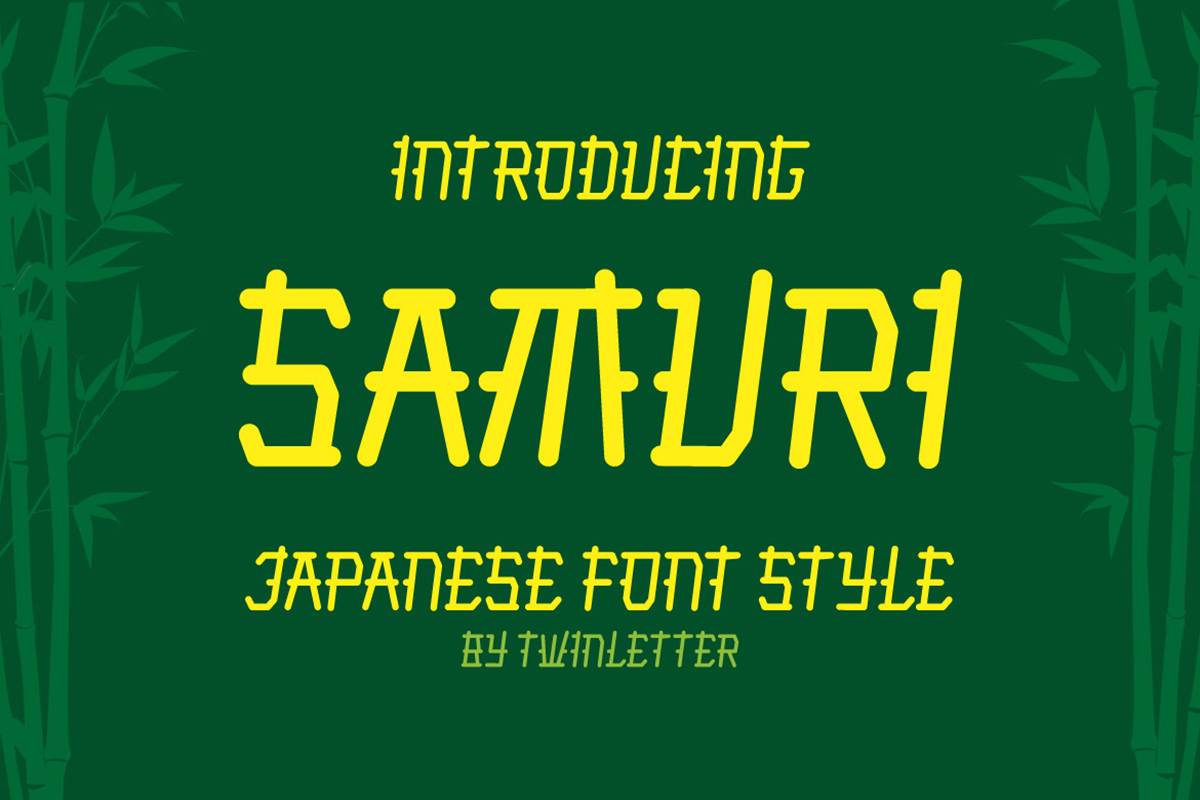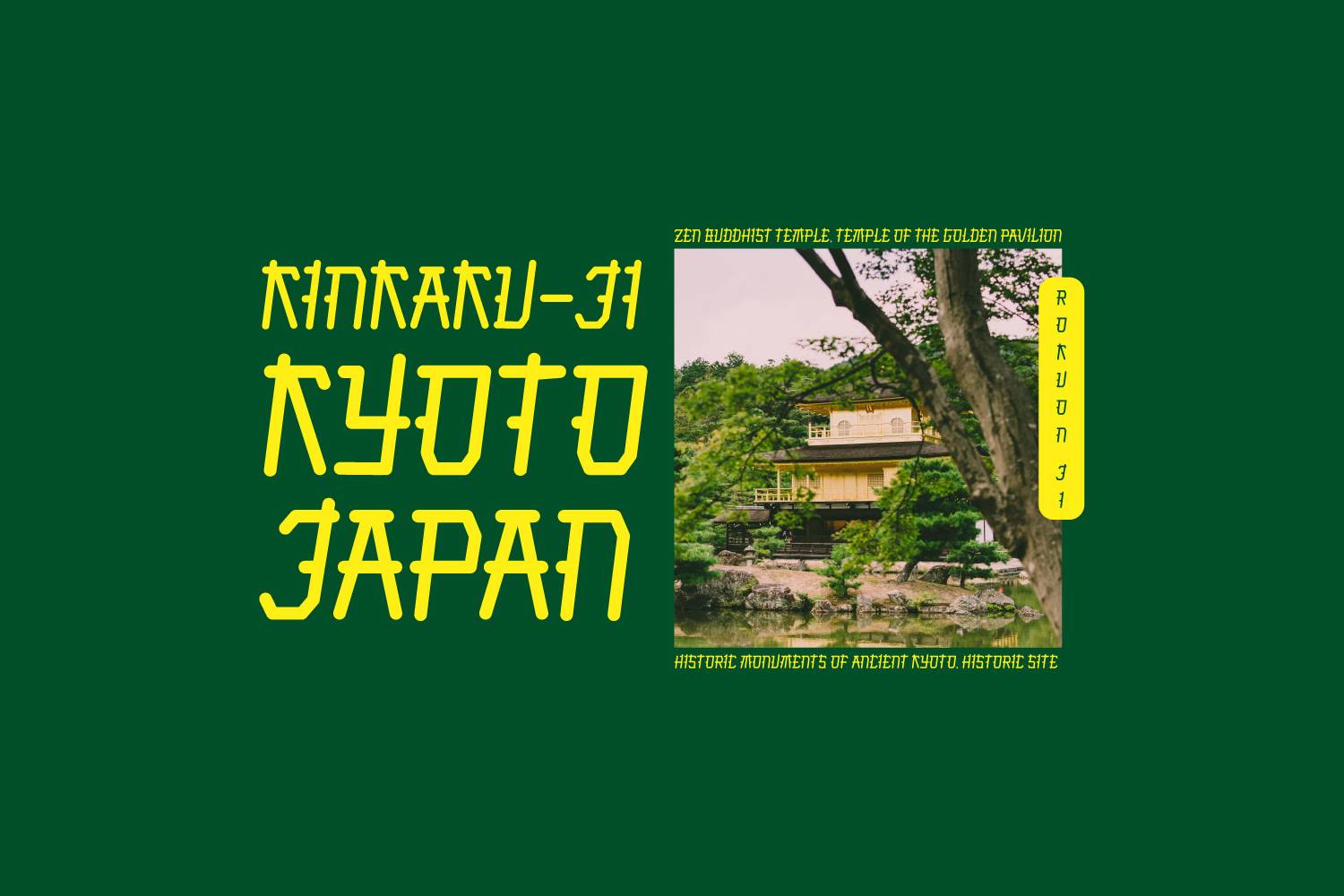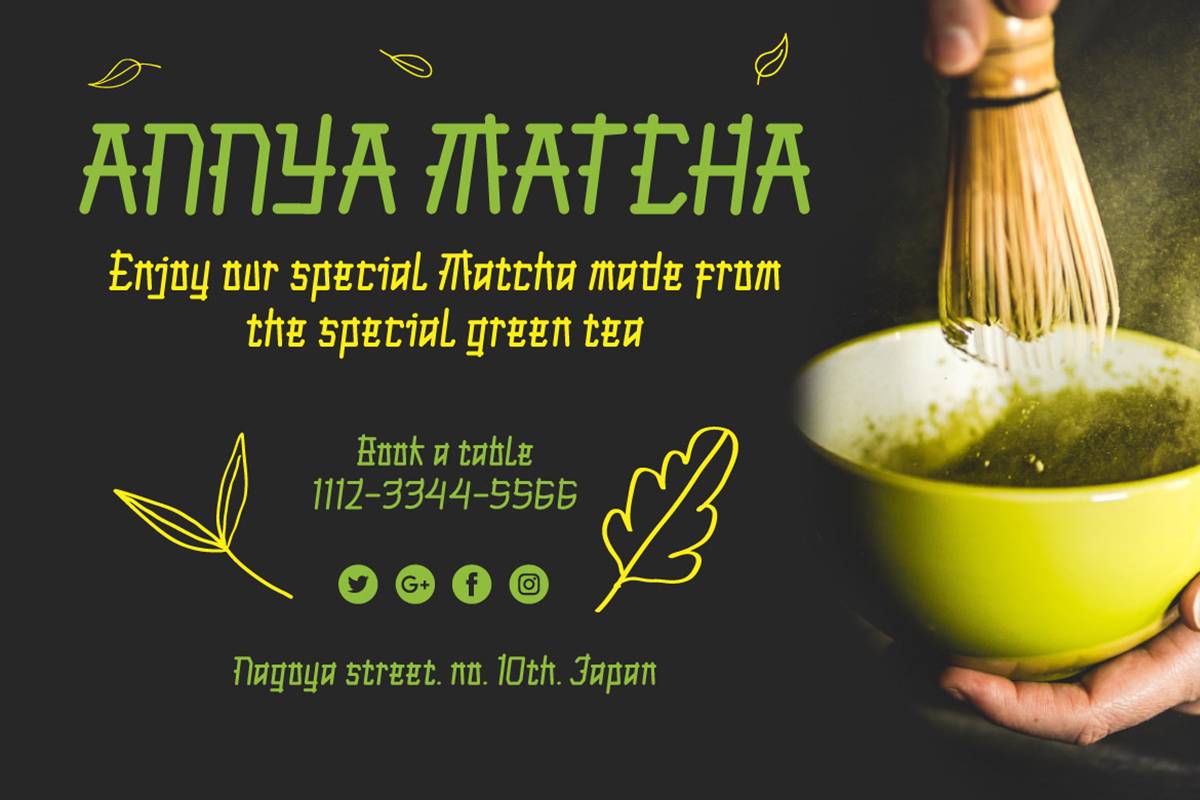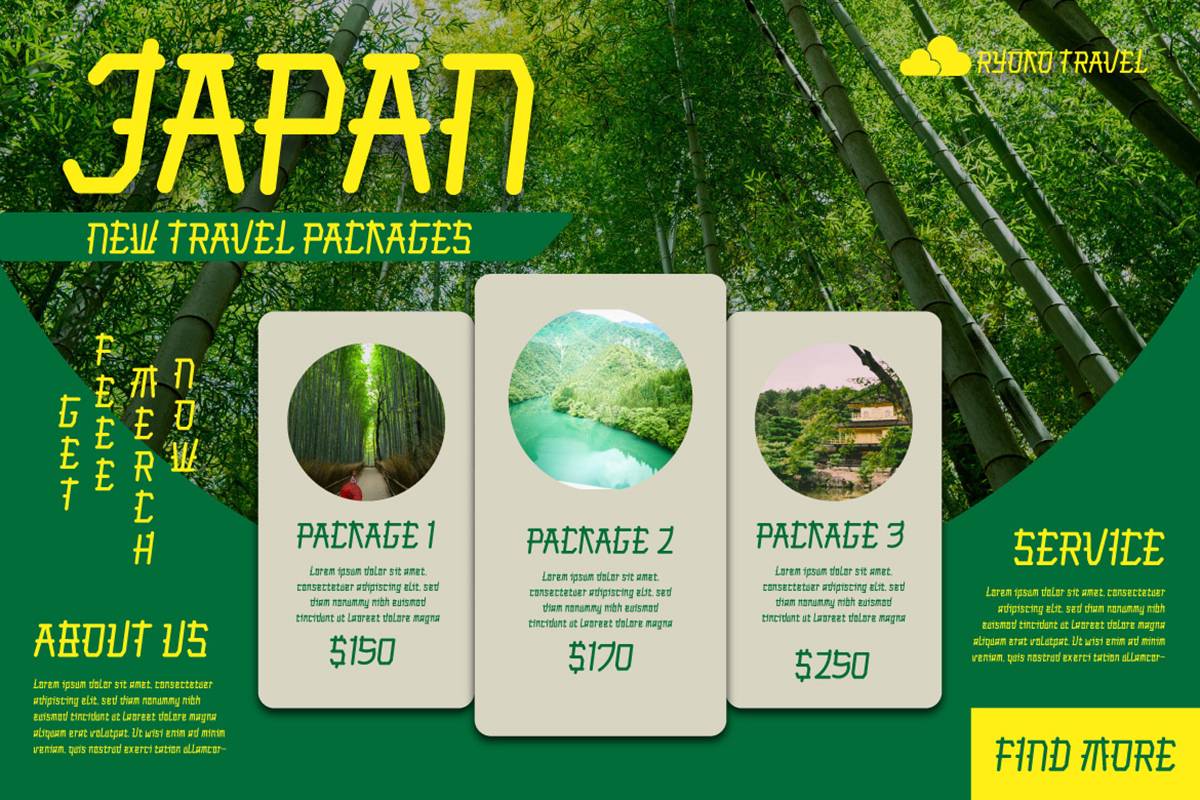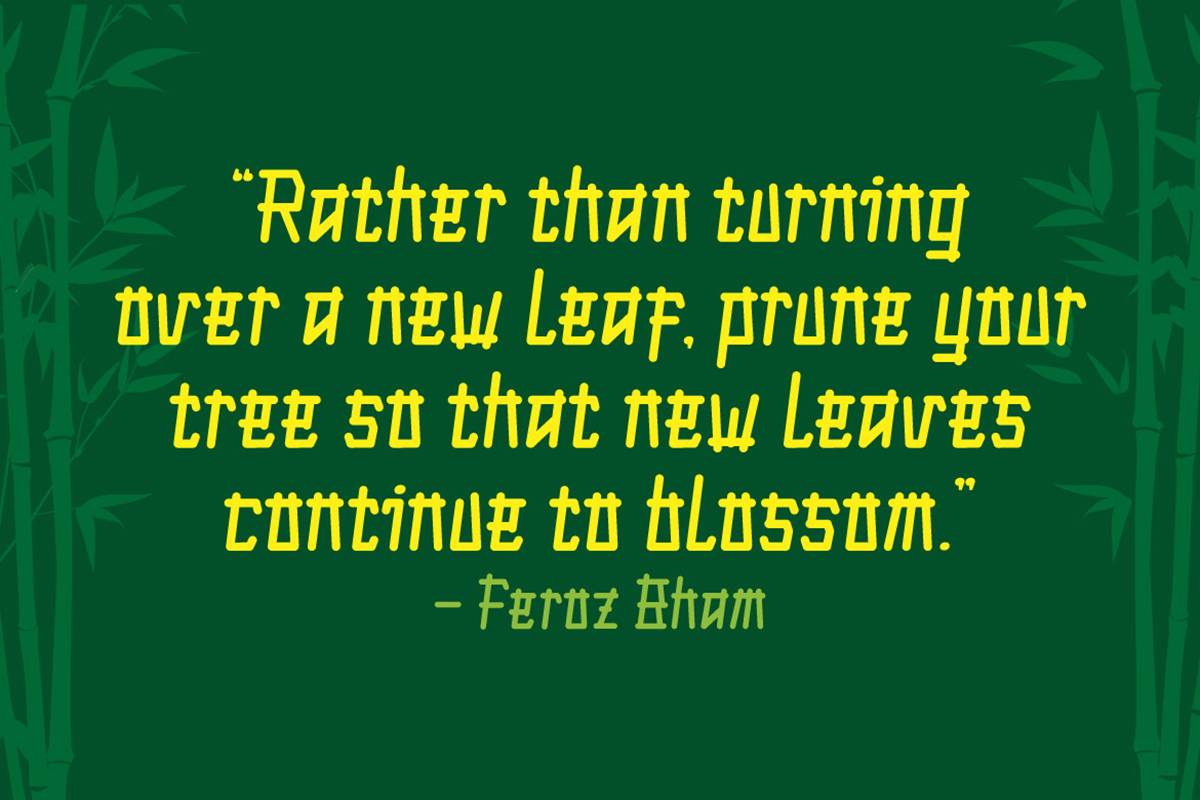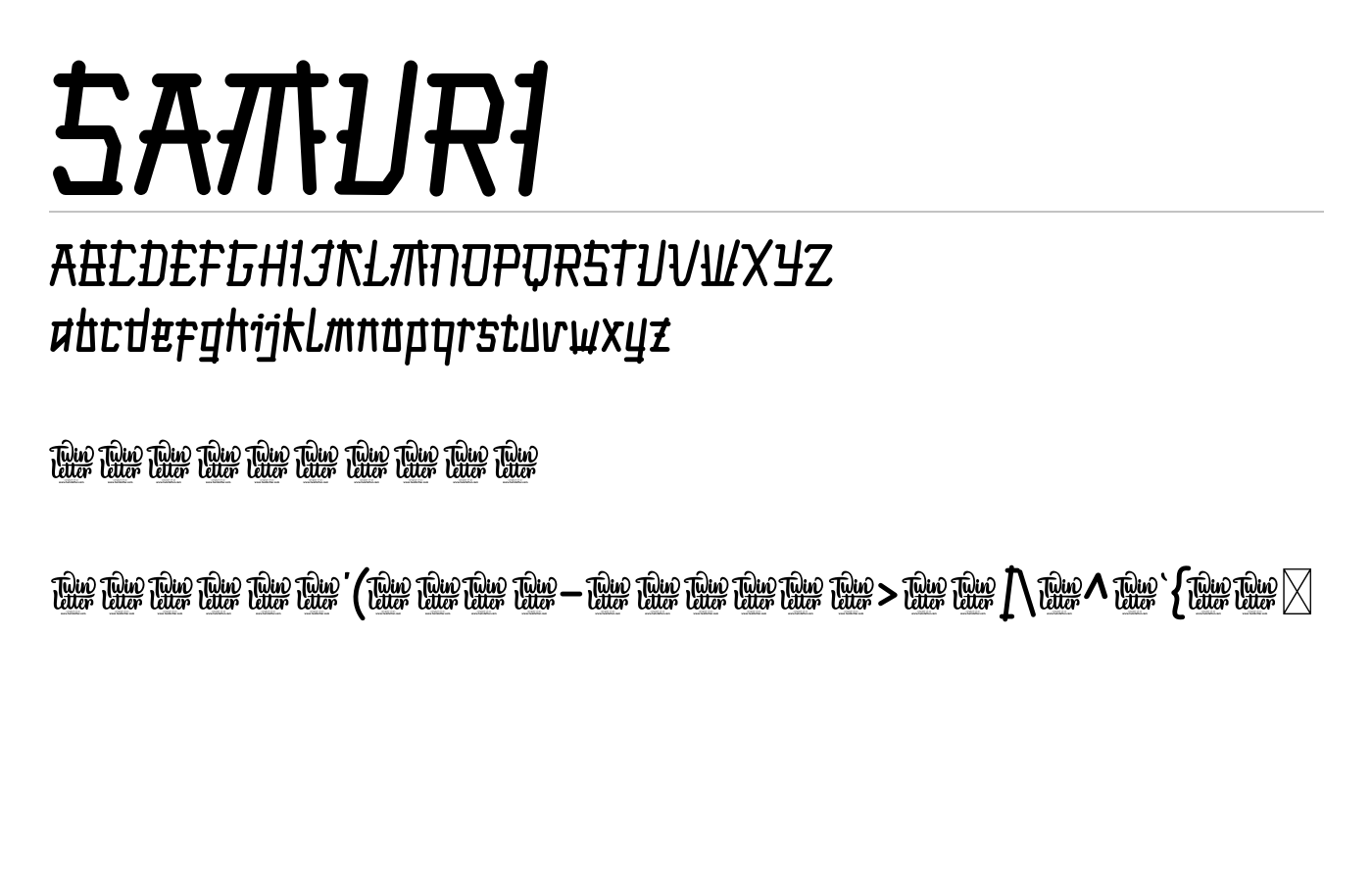
Samuri is a distinctive sans serif font with a condensed, tall structure and a mechanical, slightly angular design that gives it a modern, tech-inspired feel. Its upright slant, uniform stroke weight, and unique geometric letterforms convey a dynamic and edgy personality, making it ideal for bold headlines, branding, and projects seeking a contemporary, futuristic vibe. This font works well in contexts requiring strong visual impact and a sleek, innovative appearance.
Samuri Font
About Samuri Font